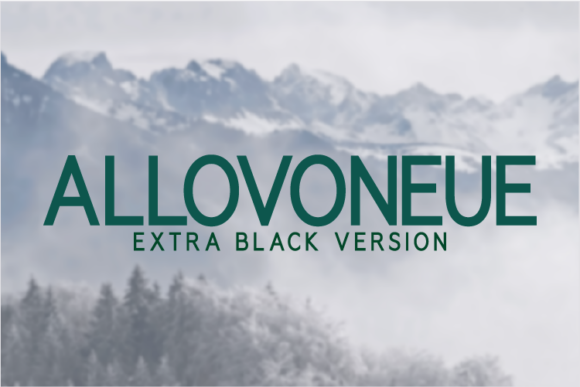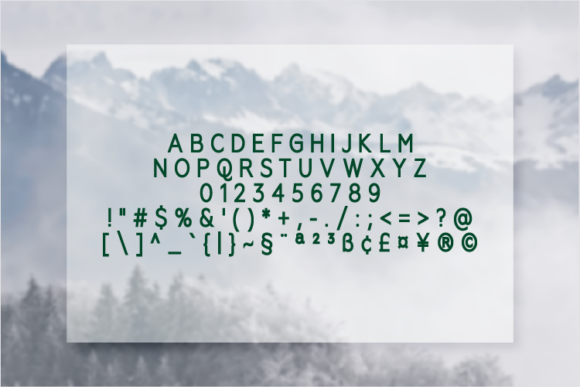
Allovoneue Extra Black Font
About Allovoneue Extra Black Font
Allovoneue is a fresh, geometric, sans-serif font family. Allovoneue has geometrical letterforms, sharp edges and very small stroke contrast as the neo-grotesk fonts from 20th Century. The typeface is versatile and can be successfully used in magazines, posters, branding and much more!